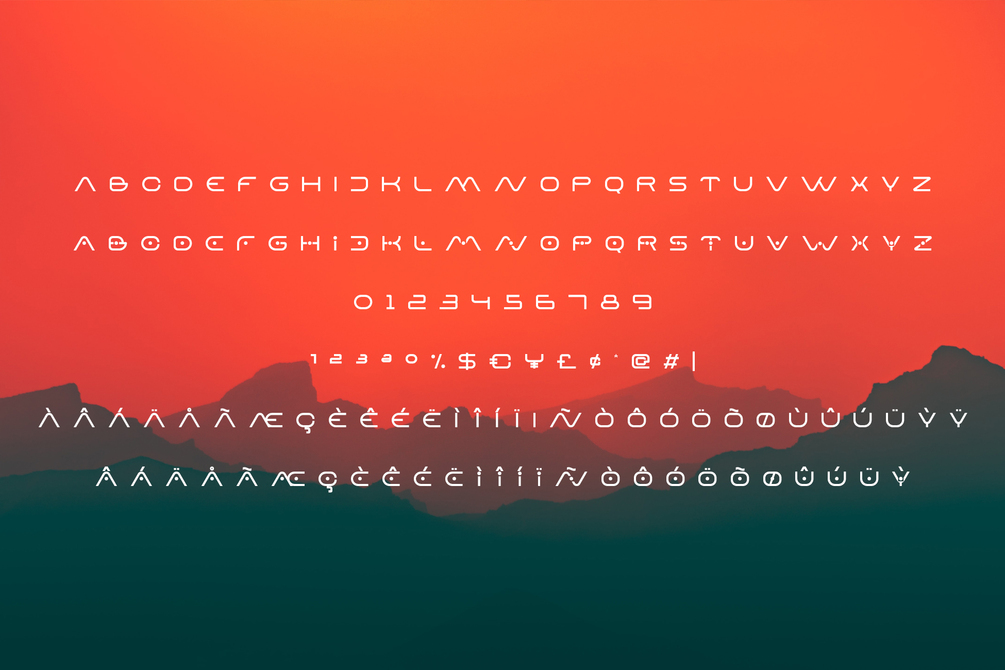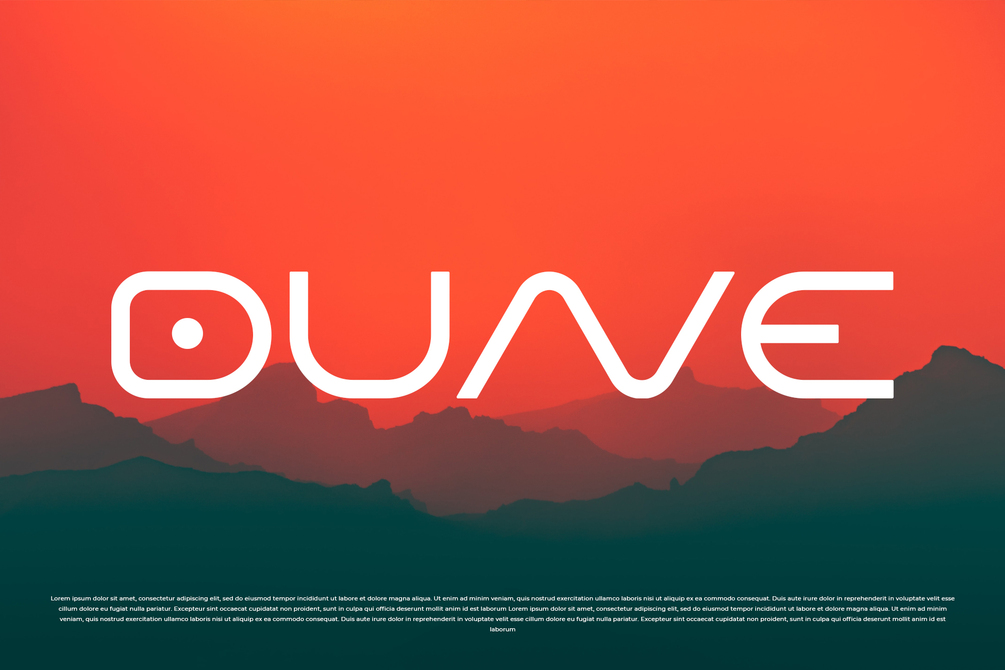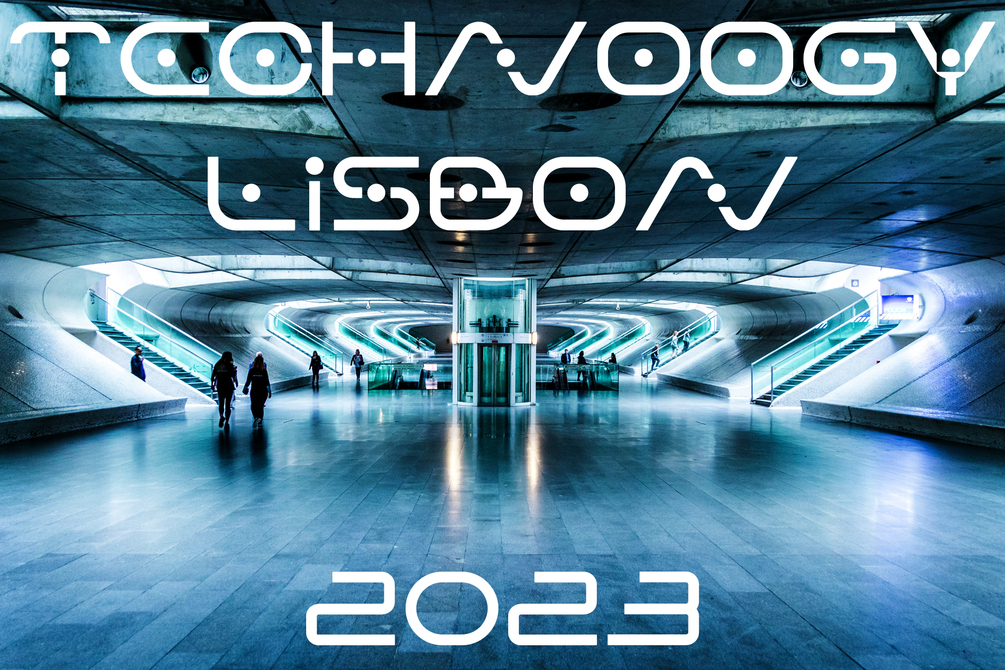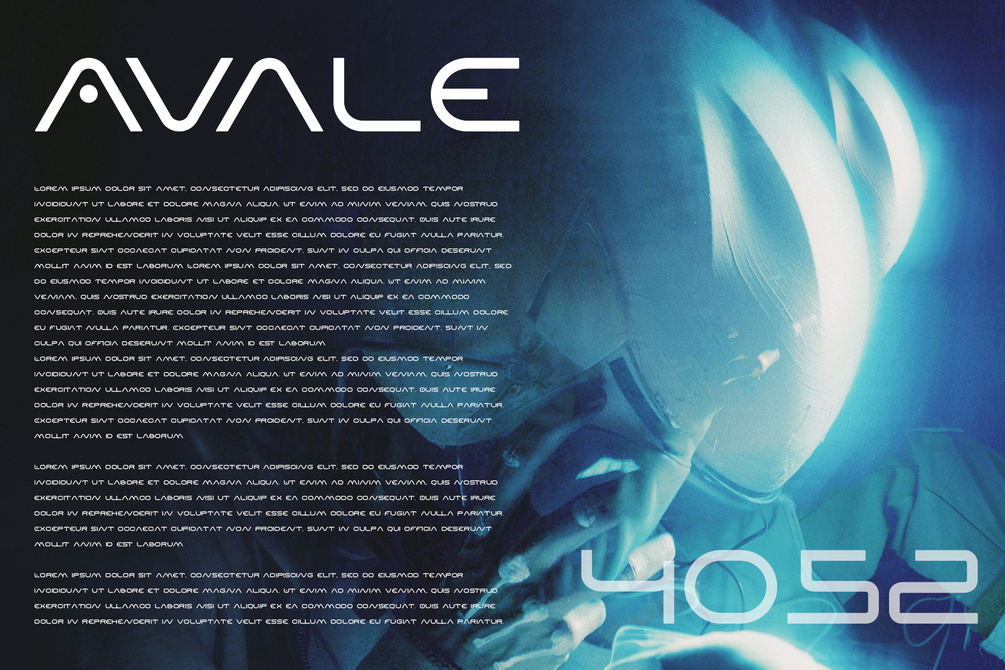
Eavm Font
Eavm is an All-Caps Font with Sci-fi Feel. suitable for events, logotypes, Sci-fi stuff, modern & futuristic vibe, social media, products, and so on. contains standard English letters, numbers, punctuation, ligature, and several accents that support multilingualism.